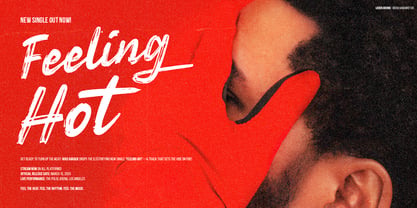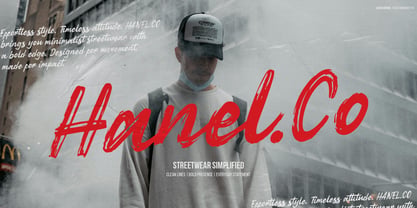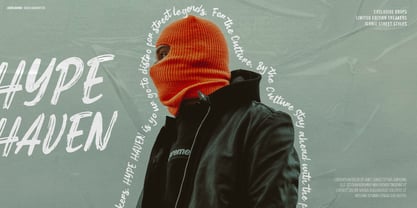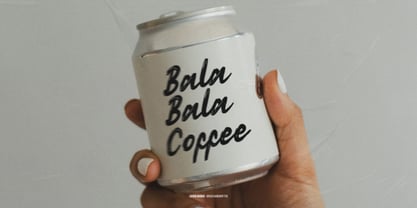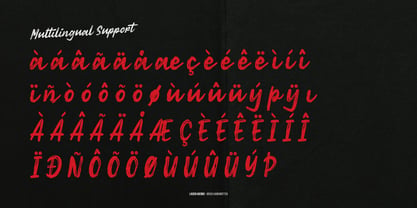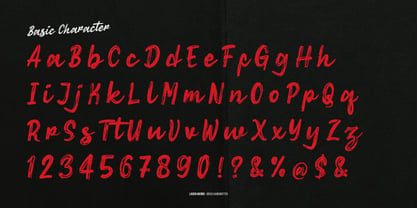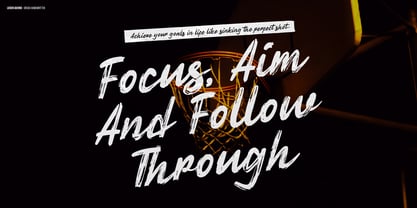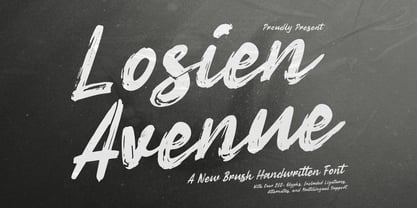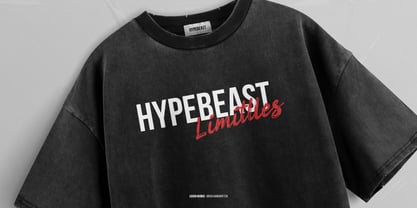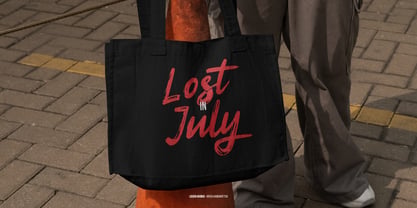
Losien Avenue
Losien Avenue | Brush Handwritten, from Gracetypestudio, suitable for any projects such as: logos, branding projects, homeware designs, product packaging, mugs, quotes, posters, shopping bags, t-shirts, book covers, name card, invitation cards, greeting cards, label, photography, watermark, special events, and all your other lovely projects that need a Brush Handwritten taste.
• Regular and Italic
• Standard glyphs
• Alternate and Ligature
• Fonts include multilingual support